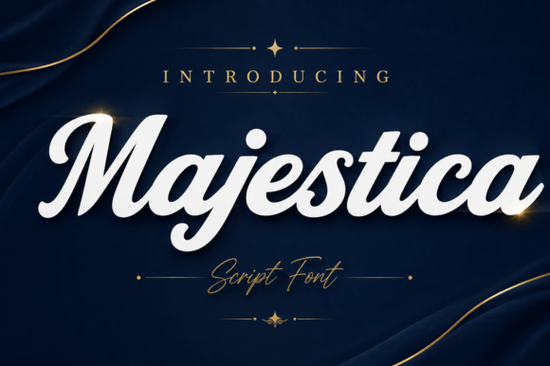
When you are working on a project that needs to look polished immediately, the choice of typography often makes the difference between a casual draft and a professional final product. Many creators struggle to find a script that balances readability with personality, leading to designs that feel either too plain or overly complicated. The Majestica Font addresses this common dilemma by offering a versatile design tool that leans towards sophistication without sacrificing usability.
This typeface features flowing lines and decorative swashes that mimic the hand-lettering styles used in high-end invitations. While it looks intricate, the letter spacing remains open enough to ensure text is legible when printed on physical materials. You do not need extensive graphic design experience to incorporate this asset into your workflow. Once installed, it functions like any standard TrueType or OpenType font, allowing you to type normally on your software interface.
Designers often worry about how their files will translate from screen to paper. One of the primary benefits of this typeface is its reliability across different mediums. Whether you are producing high-volume business cards, delicate bridal stationery, or large-format banners, the curves maintain their integrity during scaling.
The characters are crafted with consistent stroke weight, meaning thin lines do not disappear when shrunk down for small items. Conversely, the bolder sections retain substance when enlarged for signage. This stability is crucial for entrepreneurs selling physical goods online, where customers expect sharp clarity in their photos. If your design blurs or breaks upon resizing, trust erodes quickly. With these robust letterforms, you can create assets for t-shirt printing, tote bags, and greeting cards that retain their intended look.
Which other typefaces pair well with this design?
While this script serves as an excellent primary headline element, mixing it with the wrong secondary font can muddy the aesthetic. The goal is to provide contrast that highlights the elegance of the main text. If you are seeking something softer for body text, you might explore the Sugar Cookie Family Font collection. Its rounded edges complement the sharper flourishes of our primary recommendation without competing for attention.
For projects requiring a lighter touch, the Sand Beach Font offers a breezier alternative that works well in summer-themed contexts. On the playful side, if your brand targets children or pets, consider integrating elements of the Puppy Dog Font for subheadings or captions. Finally, for culinary or artisanal themes, the Cookie Crust Family Font provides a rustic texture that enhances the luxurious feel of the main display.
These combinations allow you to tailor the mood of your project. You can shift a design from formal to casual simply by swapping out the supporting typography. It is important to test these pairings in your final layout before submitting files for production. Adjusting sizes and colors ensures that the hierarchy guides the viewer's eye correctly through the message.
Additionally, check the file size limits of your cutting bed. Large decorative loops may extend beyond standard margins, so resizing your canvas beforehand saves time. Cleaning up stray points in the vector path improves cut quality and reduces material waste. Some users also take advantage of the kerning options available in modern editing programs to tighten the visual gaps between characters, creating a unified logo mark.